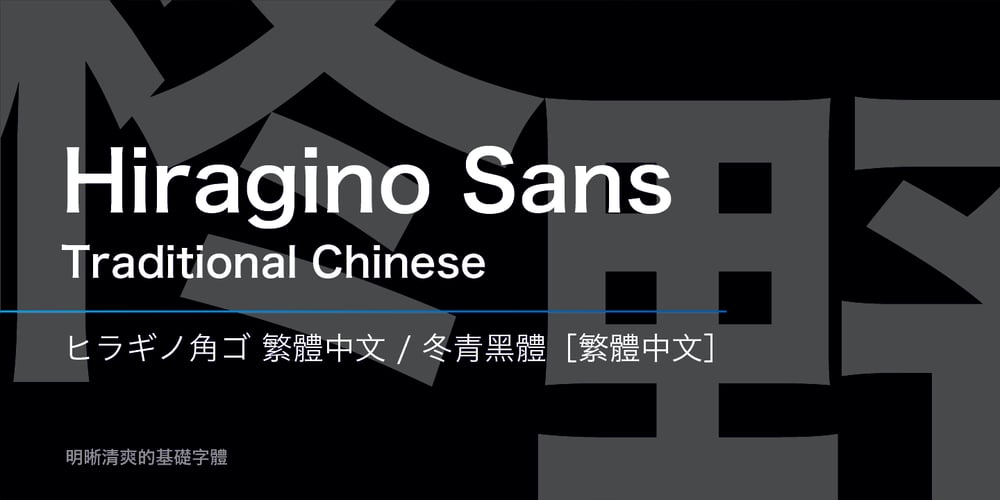
Hiragino Sans TC Font Family was designed by published by SCREEN Graphic Solutions. Hiragino Sans TC contains 2 styles and family package options. Hiragino Sans Traditional Chinese is a traditional Chinese font that inherits design characteristics from the Hiragino Sans (Kaku Gothic). The font satisfies the rising demand for a high-quality Big 5 embedded font for multilingual products, allowing it to be utilized in a wide range of applications.